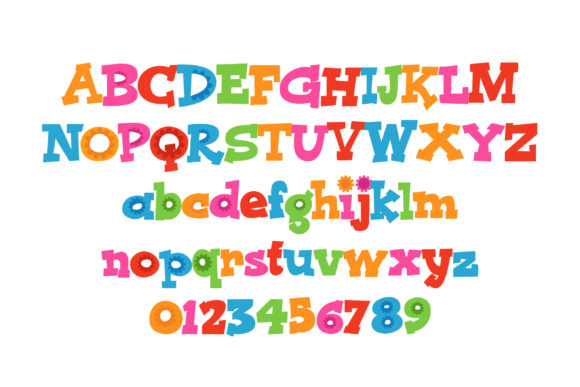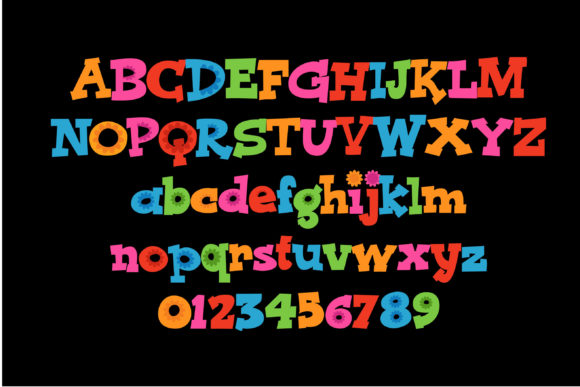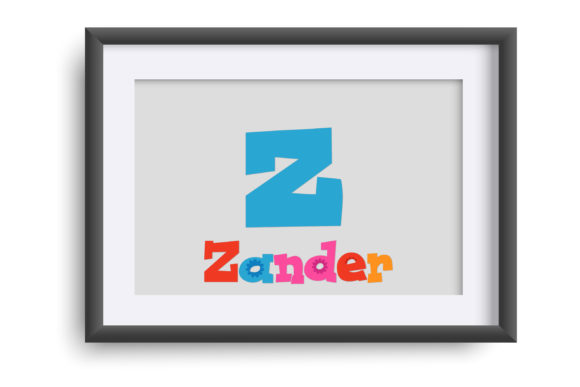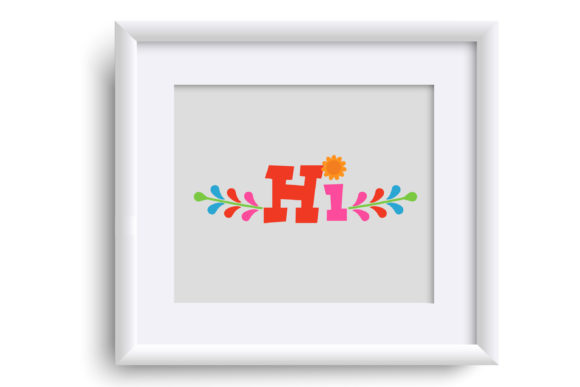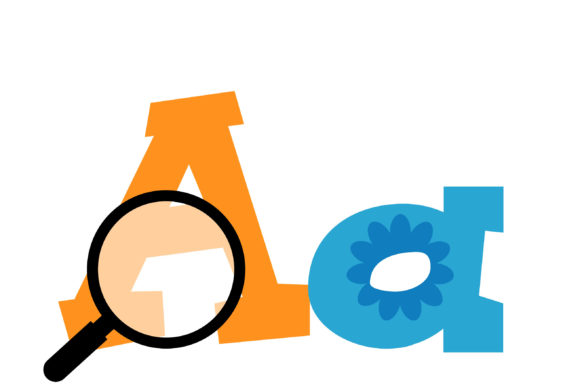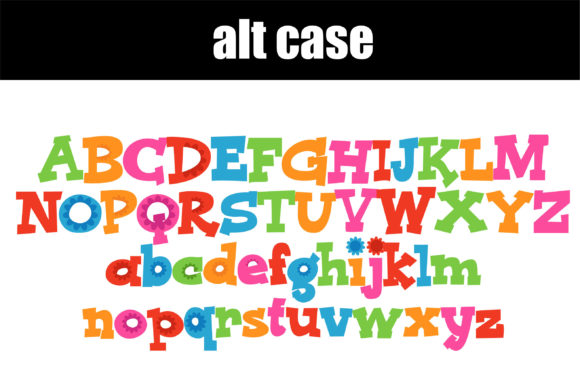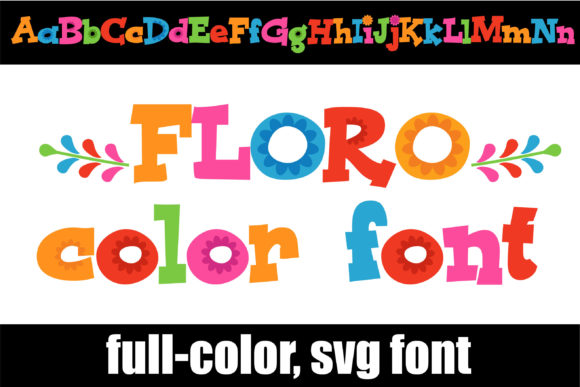
Introducing Floro Font: A Vibrant and Versatile Color Font for Designers and Crafters
Are you looking for a font that can add a pop of color and freshness to your designs? Look no further than Floro Font, a stunning full-color font that features a bright color palette and beautiful blossoms throughout. In this article, we’ll take a closer look at the features and benefits of Floro Font, and explore how you can use it to elevate your designs.
A Unique and Eye-Catching Font
Floro Font is a one-of-a-kind font that is sure to grab attention. Its bright color palette and delicate blossoms make it perfect for designs that require a touch of elegance and sophistication. Whether you’re creating a logo, greeting card, or social media graphic, Floro Font is sure to make your design stand out.
Key Features of Floro Font
- Full-color font: Floro Font is a color font (Opentype-SVG) that features a vibrant color palette, making it perfect for designs that require a pop of color.
- Blossoms throughout: The font features beautiful blossoms throughout, adding a touch of elegance and sophistication to your designs.
- Second upper and lower alt case: Floro Font includes a second upper and lower alt case that you can access through your system’s character map, providing you with even more design options.
Tips for Using Floro Font
- Experiment with different colors: Floro Font’s color palette is one of its standout features. Experiment with different colors to find the perfect combination for your design.
- Use it for special occasions: Floro Font’s elegant and sophisticated design makes it perfect for special occasions such as weddings, birthdays, and holidays.
- Pair it with other fonts: Floro Font can be paired with other fonts to create a unique and eye-catching design. Experiment with different font combinations to find the perfect pairing.
Why Choose Floro Font?
So why choose Floro Font for your design projects? Here are just a few reasons:
- Unique and eye-catching design: Floro Font’s bright color palette and delicate blossoms make it a one-of-a-kind font that is sure to grab attention.
- Elegant and sophisticated: Floro Font’s elegant and sophisticated design makes it perfect for designs that require a touch of class and refinement.
In conclusion, Floro Font is a vibrant and versatile color font that is perfect for designers and crafters looking to add a pop of color and freshness to their designs. With its bright color palette, delicate blossoms, and second upper and lower alt case, Floro Font is sure to make your designs stand out. Whether you’re creating a logo, greeting card, or social media graphic, Floro Font is a great choice. So why wait? Download Floro Font today and start creating stunning designs!